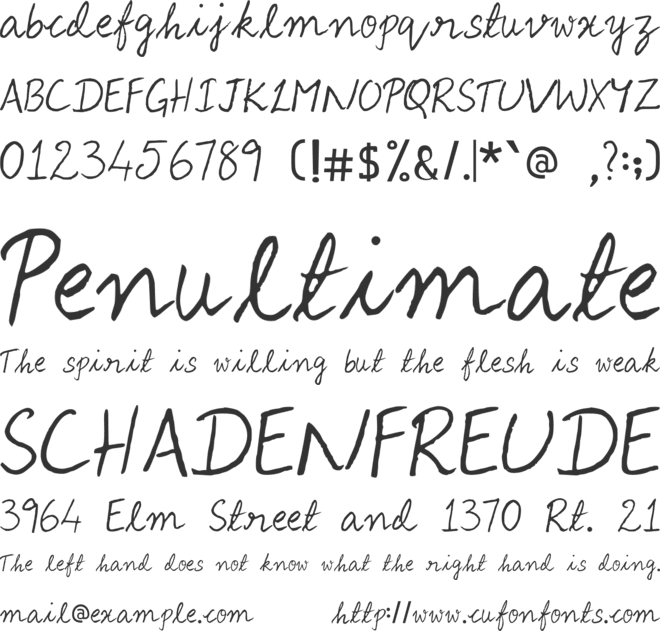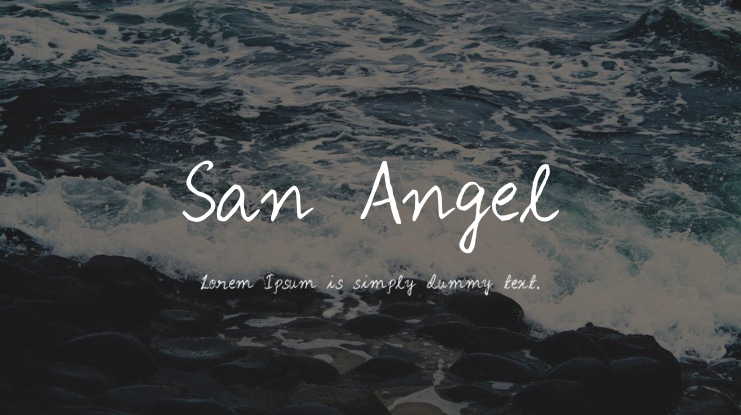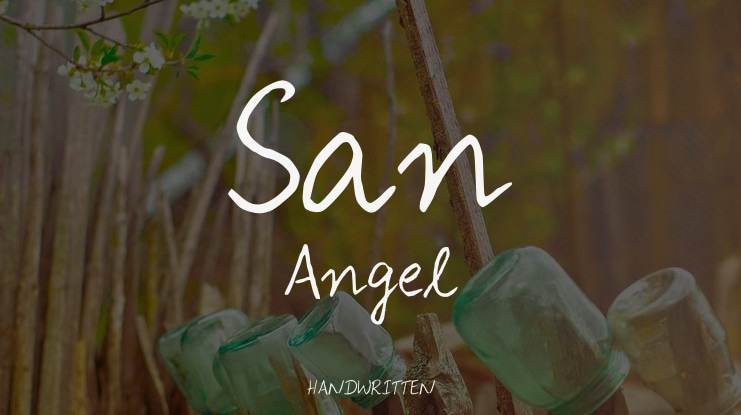
San Angel Font
The "San Angel" font is a delightful script typeface that radiates a cozy and friendly feel. Taking inspiration from the artistic brushstrokes of Sanju, this font encapsulates the essence of handwritten messages with its refined yet whimsical style. Ideal for infusing a unique personal flair into various materials like documents, presentations, invites, cards, or branding endeavors, using "San Angel" is guaranteed to spark creativity and originality in every design.